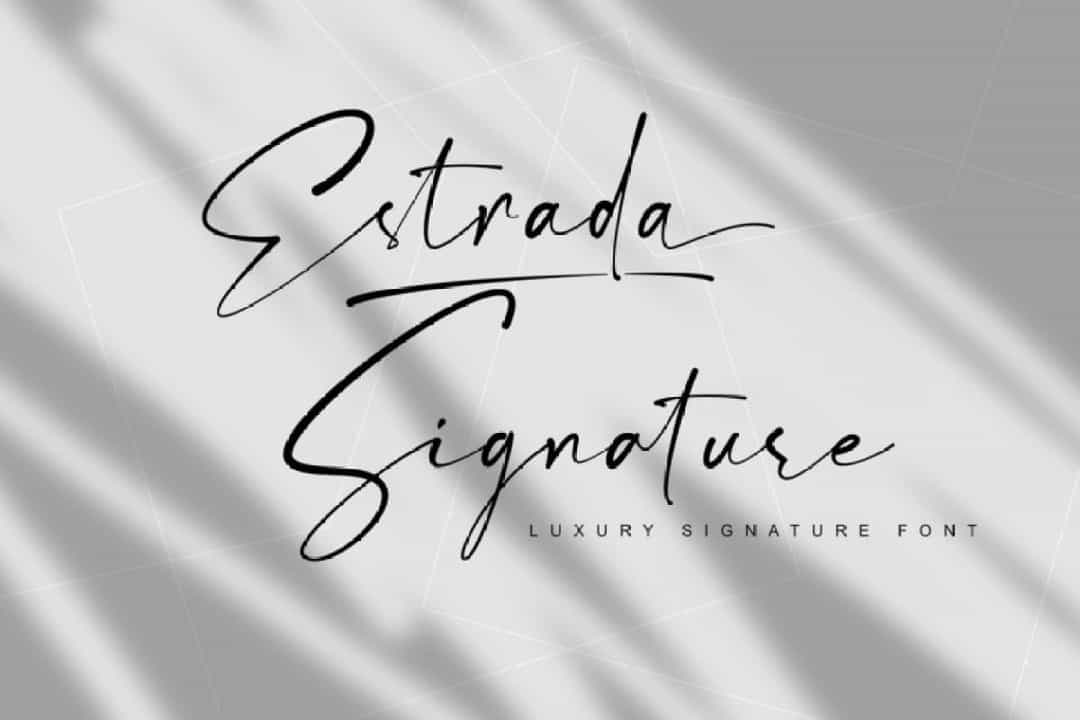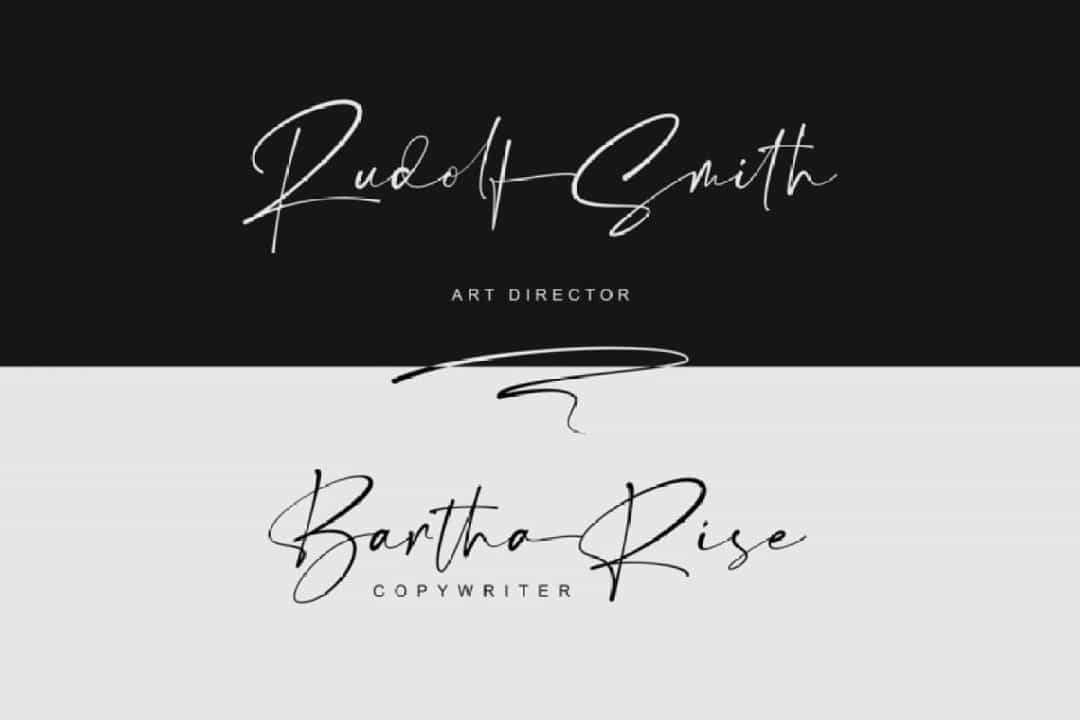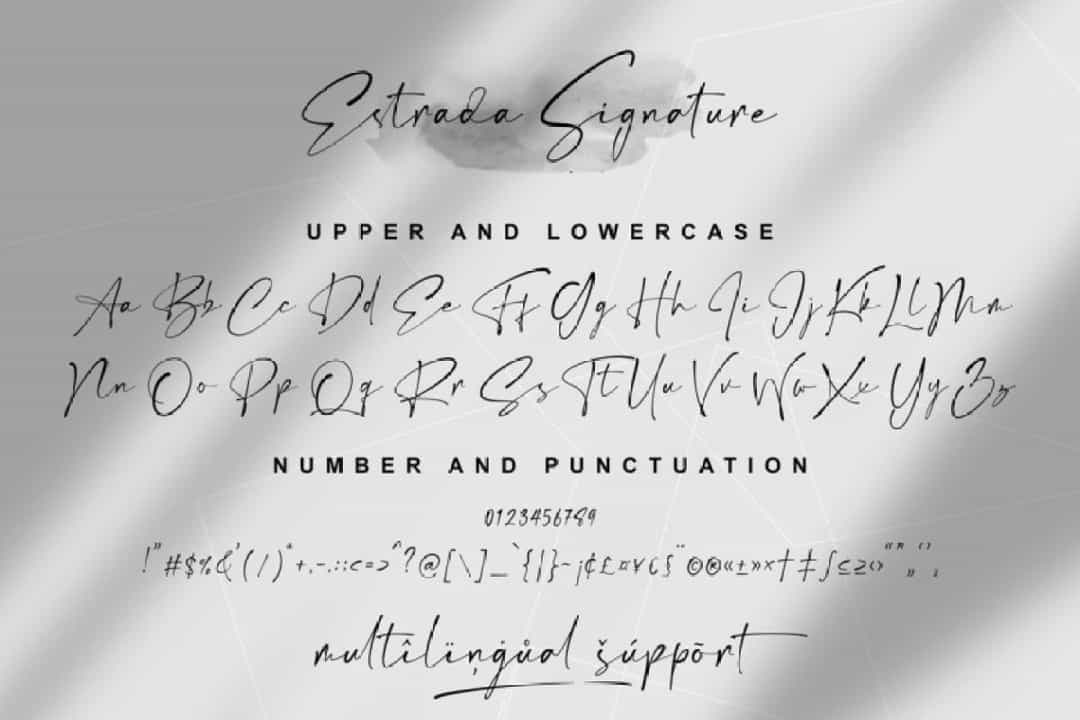
Discover Estrada Luxury Signature Font, part of the Handwritten Script collection—a versatile and unique font perfect for adding a personal touch to your projects. Download it for free and enjoy crafting designs with style, from invitations to social media posts. This font is available exclusively for personal use, giving you the freedom to create without limits. Unlock your creativity with Estrada Luxury Signature Font today!
Estrada Signature is an individual handwritten signature font produced with a fountain pen. We made it in a way that can mimic the natural writing of a human being. Sebastian Bobby is one of the leading artists for designing handwritten quotes, signature style logos, and beautiful branding ideas as well as beautiful product and stationery designs by hand.